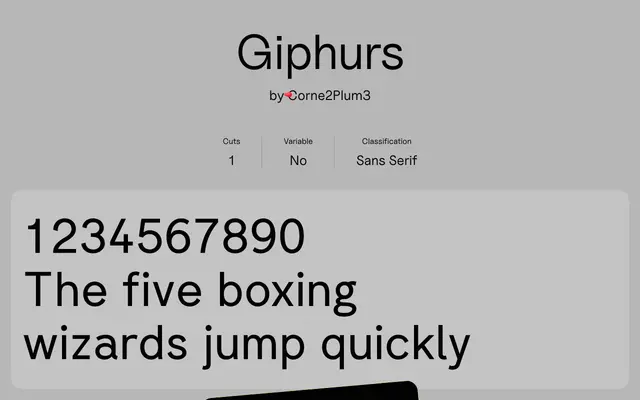
Giphurs
A single-cut sans-serif by Corne2Plum3, released under the SIL Open Font License for free commercial and personal use.
A minimal sans-serif offering just one cut, with no variable axis or italic companion. Released under the SIL Open Font License 1.1, it permits commercial use, modification and redistribution with conditions. Little information is available about its design intent or character coverage.
Listed under Sans Serif by Uncut; with only a single cut and no further style details, it sits within a broad grotesque classification by default.